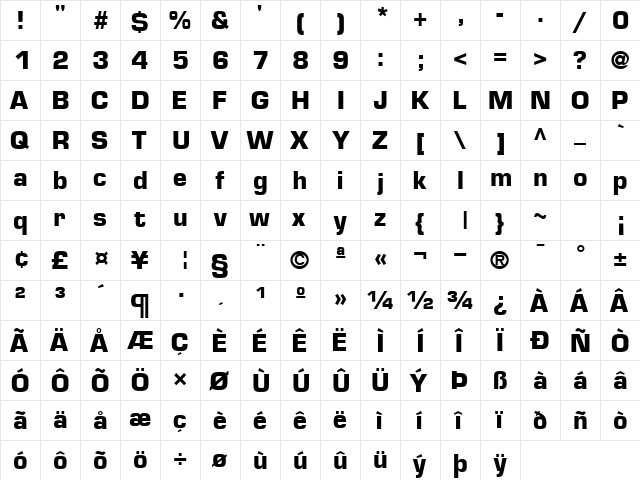
PalindromeBlackSSK Regular
Design Context for PalindromeBlackSSK Typeface
PalindromeBlackSSK offers clean, dependable letterforms without strong stylistic allegiance, making it a practical choice for designers who need flexibility.